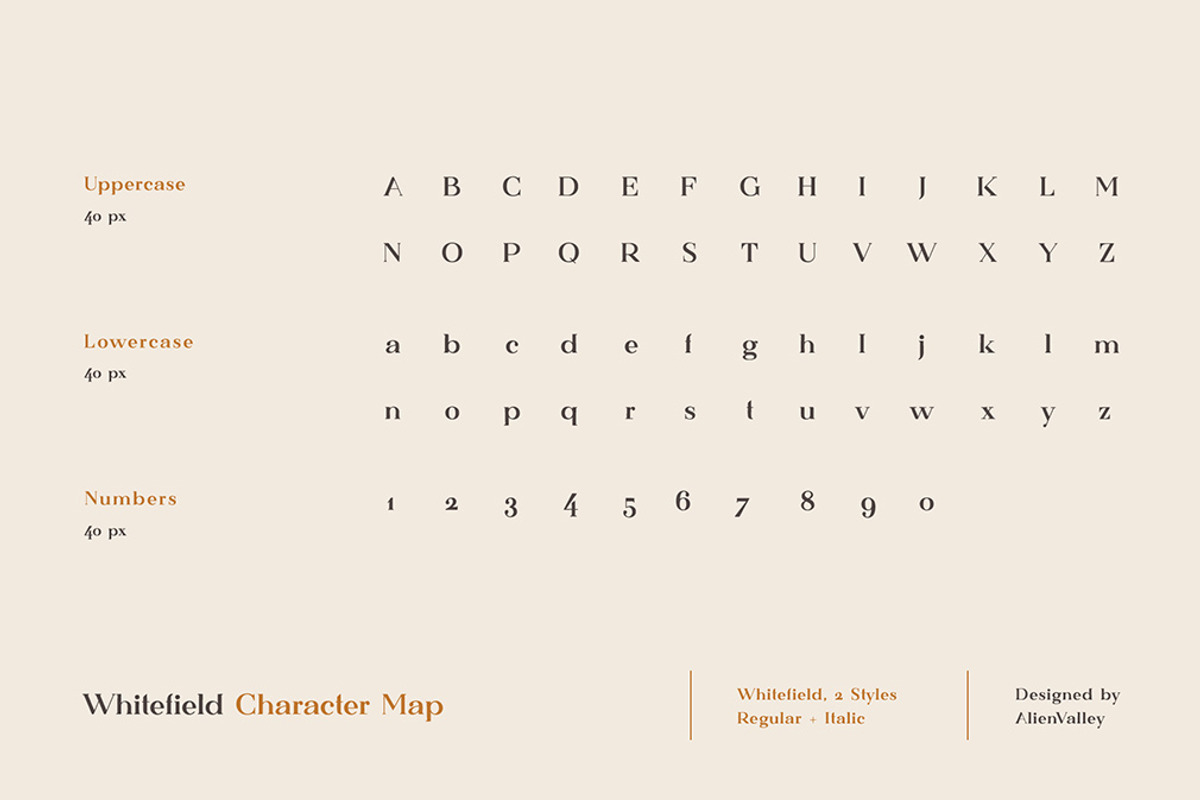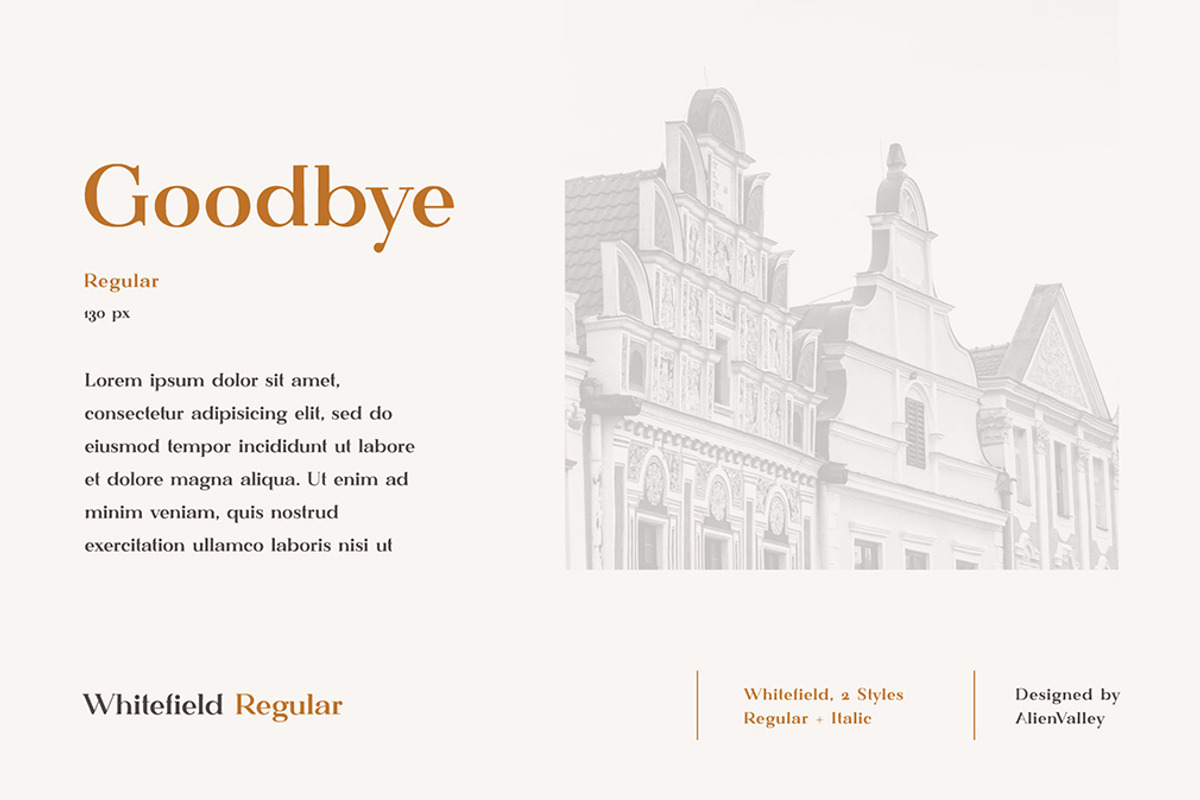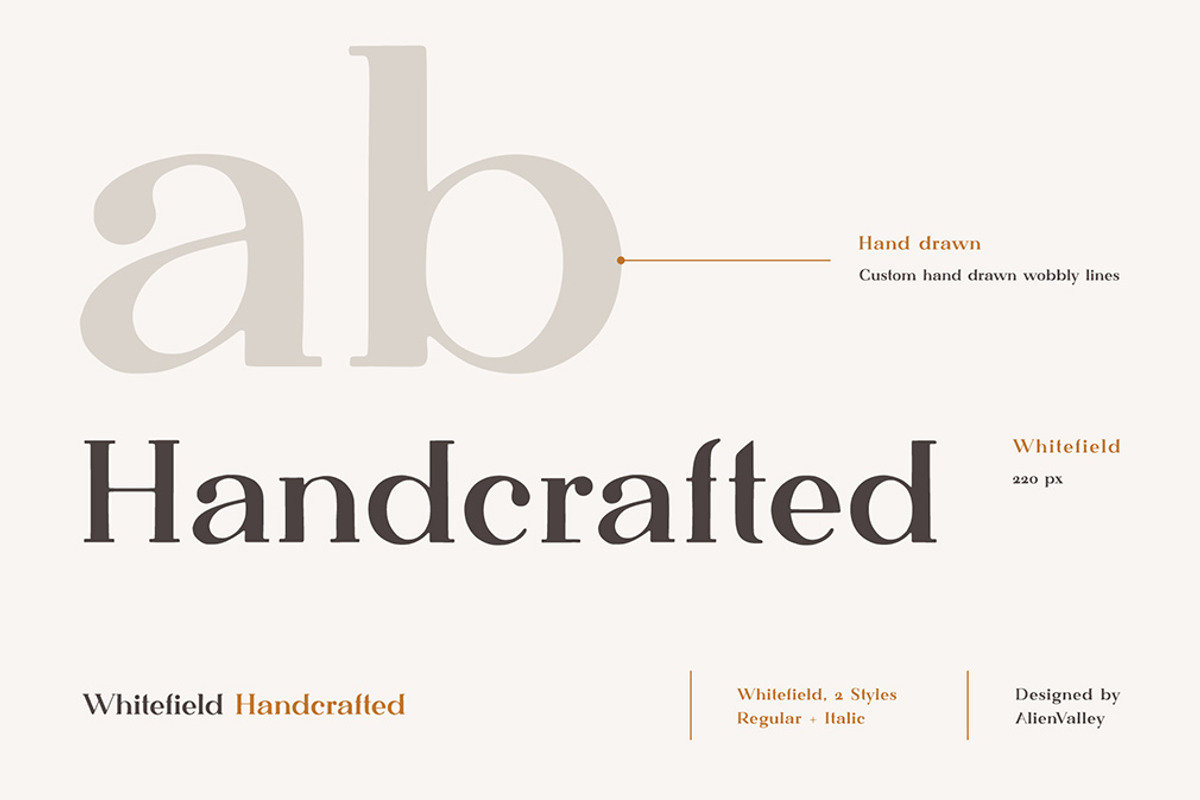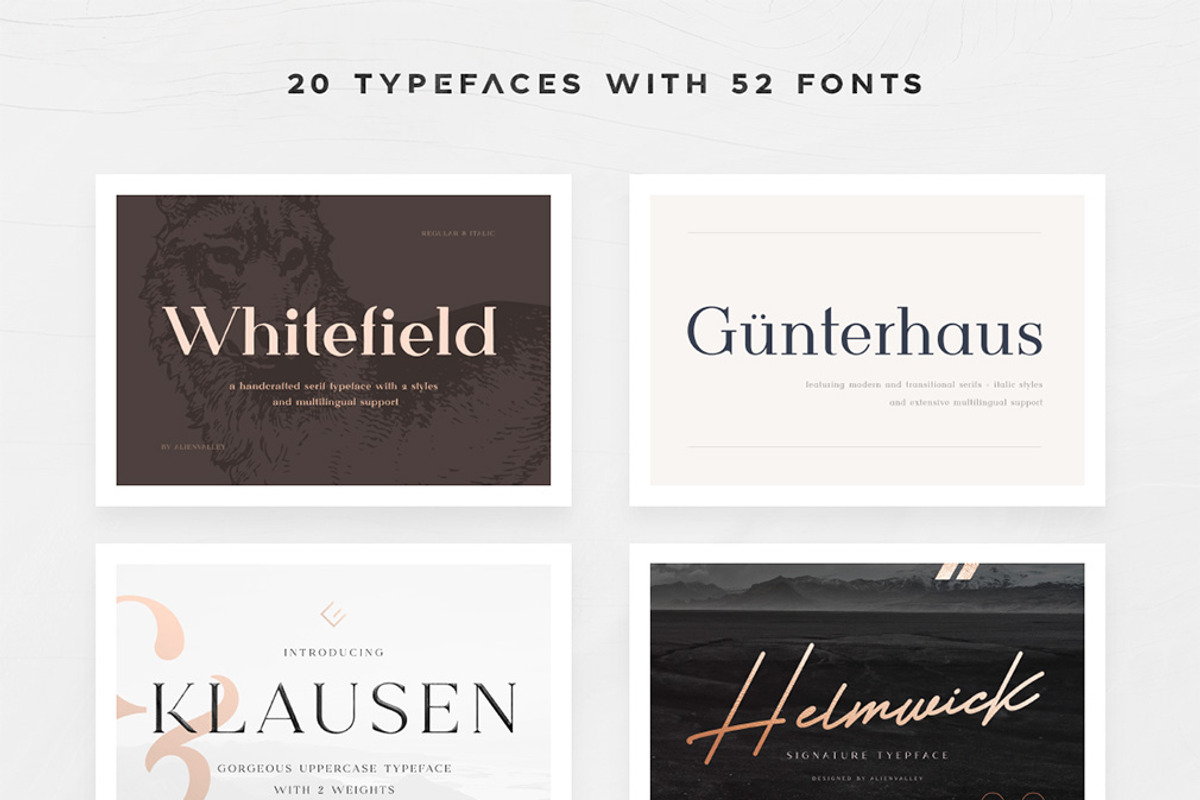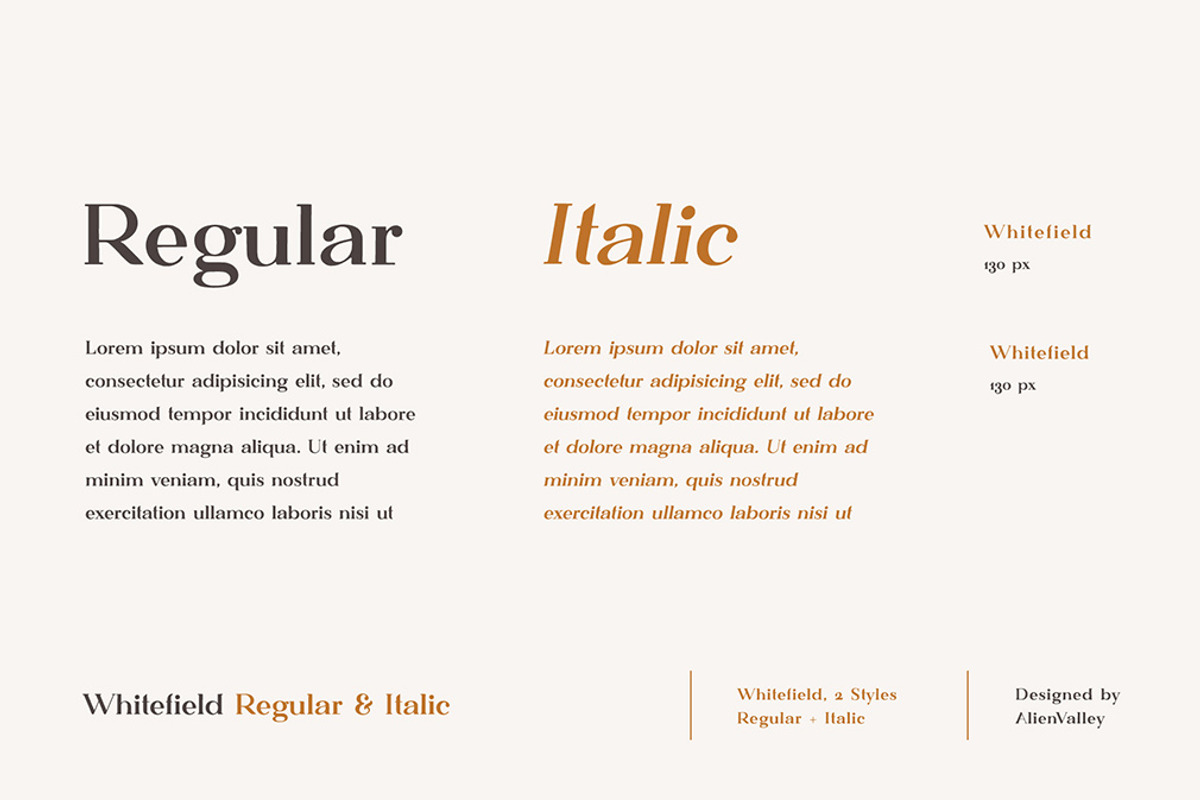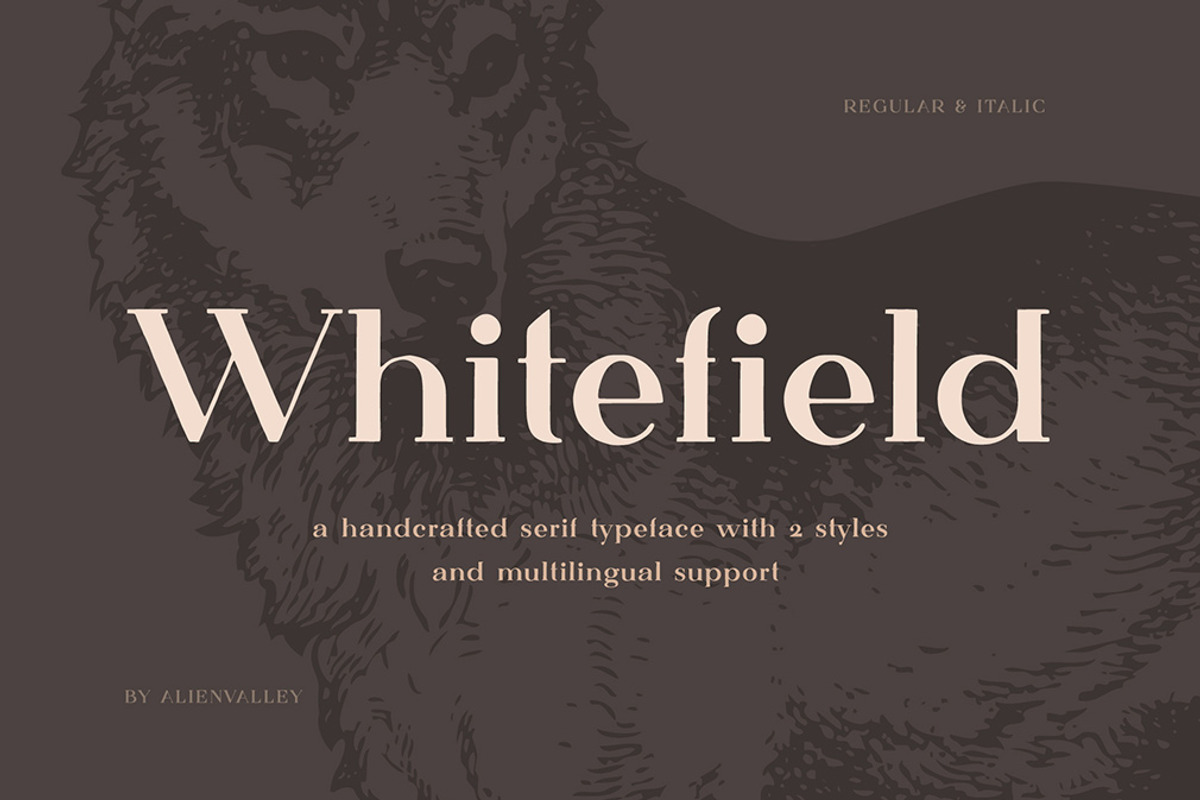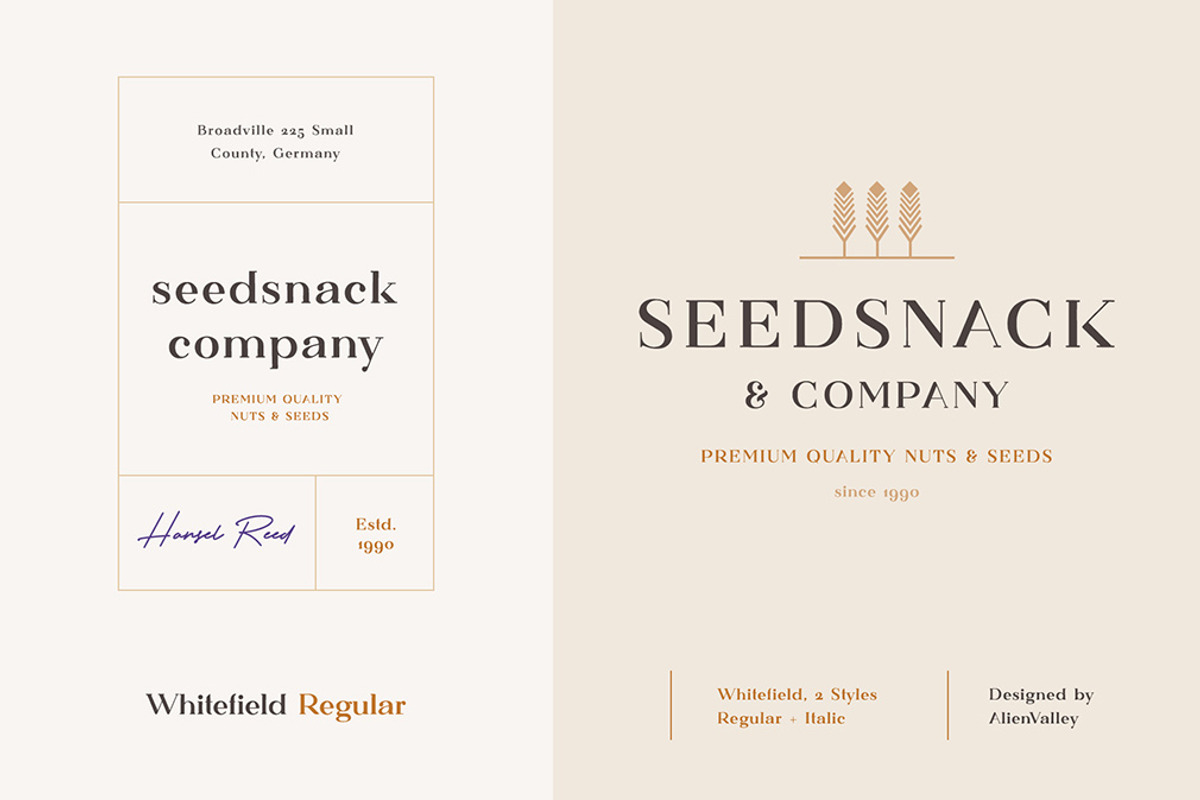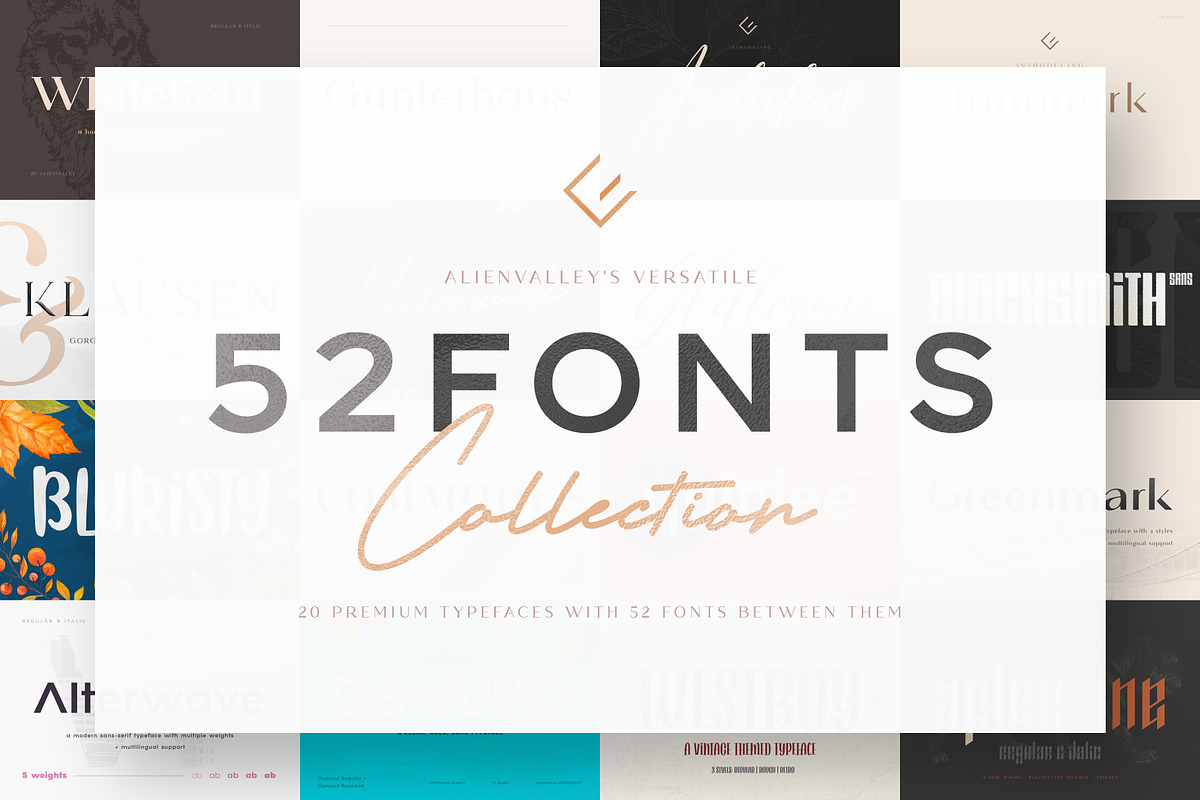
The Versatile Font Bundle
This is a hugely versatile collection featuring 20 typefaces with 52 fonts between them, ranging from serif & sans-serif to brush and script fonts so no matter what your projects require we've got you covered!
Whitefield Handcrafted Serif (2 Fonts)
Gunterhaus Modern & Transitional (4 Fonts)
Klausen Stylish Typeface (2 Fonts)
Helmwick Signature Script (1 Font)
Bluristy Brush Typeface (4 Fonts)
Commodus All Caps Serif (3 Fonts)
Alterwave Sans Serif (10 Fonts)
Osmund Bold Sans Serif (2 Fonts)
Archelaos Elegant Script (1 Font)
Finnmark Elegant Sans Serif (2 Fonts)
Glitterino Stylish Script (2 Fonts)
Clocksmith Display Typeface (4 Fonts)
Quinlee Versatile Sans Serif (2 Fonts)
Multiberry Script (1 Font)
Westboy Vintage Typeface (3 Fonts)
After One Blackletter Inspired Typeface (2 Fonts)
Exophis Modern Sans Serif (2 Fonts)
Benfield Script (1 Font)
Hornhir Typeface (2 Fonts)
Greenmark Handcrafted Sans Serif (2 Fonts)